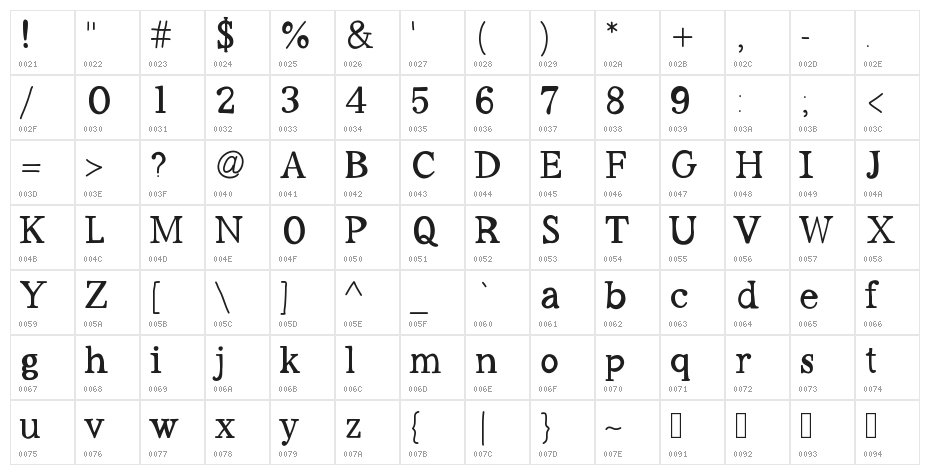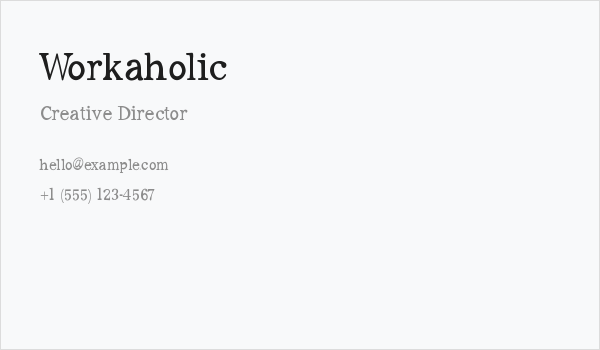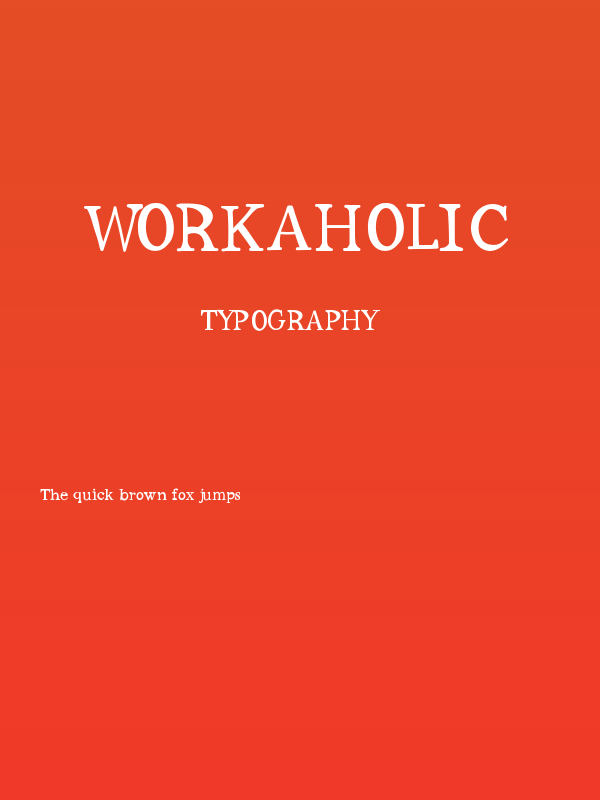
Workaholic Font
Workaholic Description
This font exhibits a classic serif style with a strong presence and a touch of elegance. The uppercase letters are bold and commanding, while the lowercase letters maintain a consistent and harmonious flow. The numerals are clear and distinct, making them easily readable. Special characters are well-integrated, maintaining the overall aesthetic. The font's design is characterized by its medium contrast in stroke thickness, providing a balanced and refined appearance. Its traditional serif elements make it suitable for formal and professional applications, while its boldness adds a modern twist.
| Proposed Projects | Ideal for book covers, formal invitations, branding materials, and editorial design. |